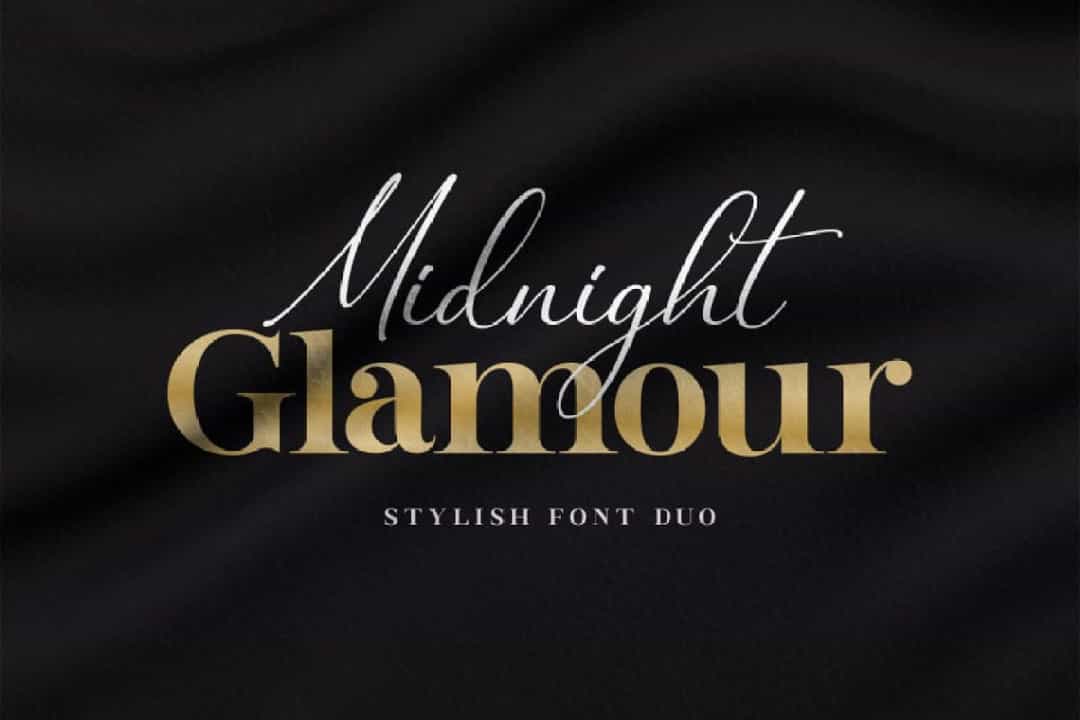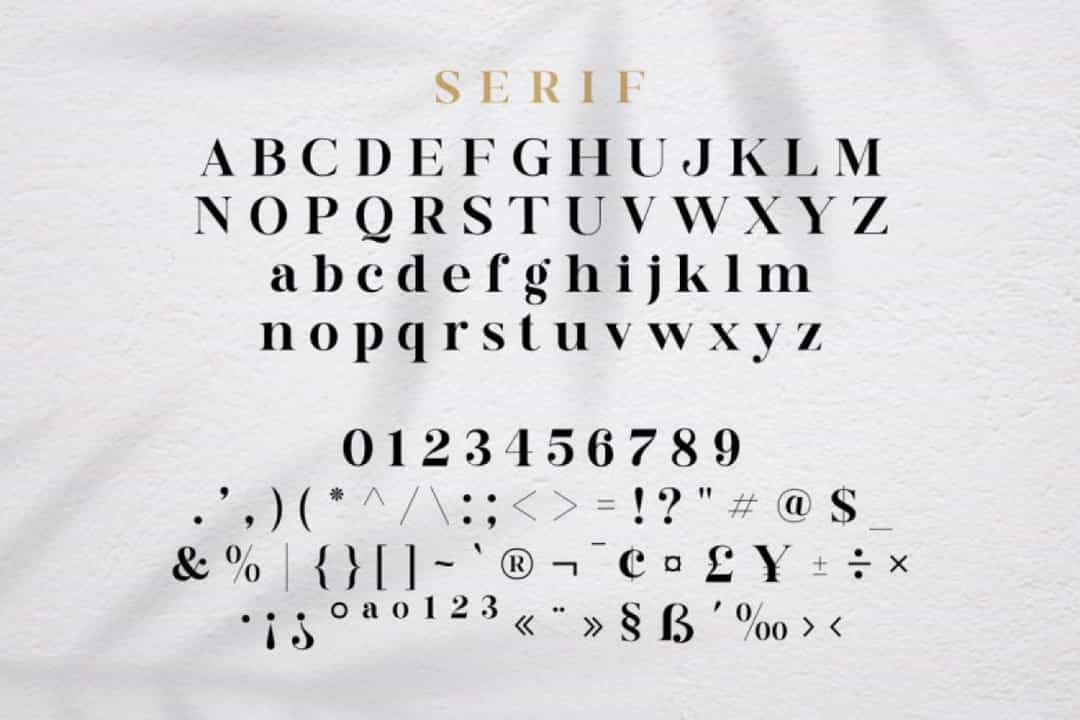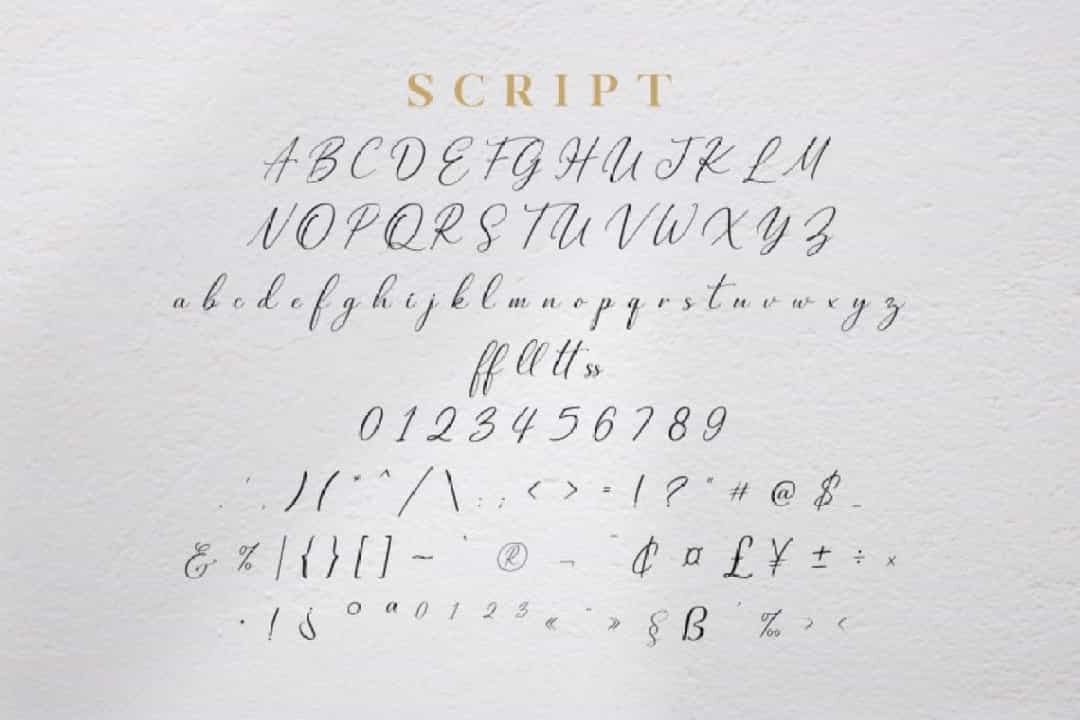
Midnight Glamour is an exquisite and adaptable combination of script and serif fonts, ideal for Instagram captions or use in home craft projects – this font will turn any idea you have into a work of art!